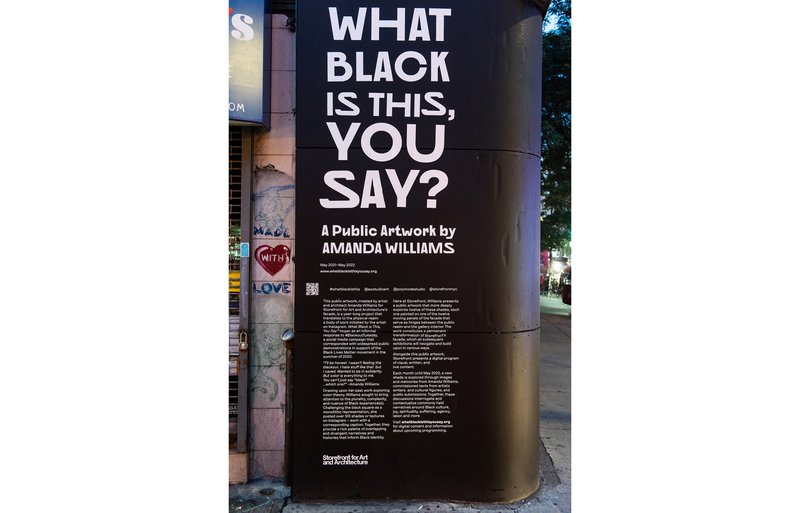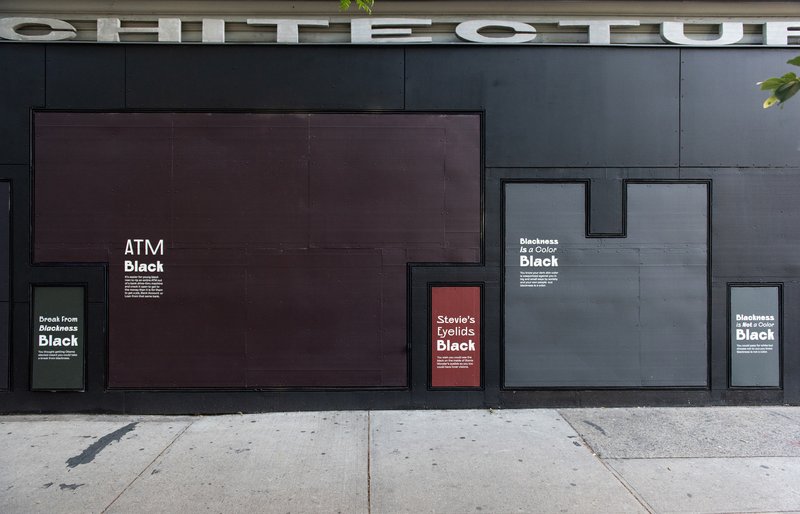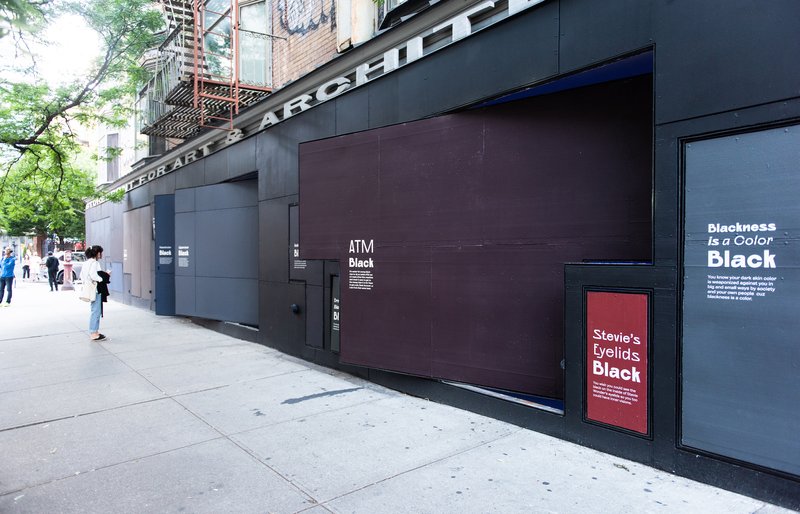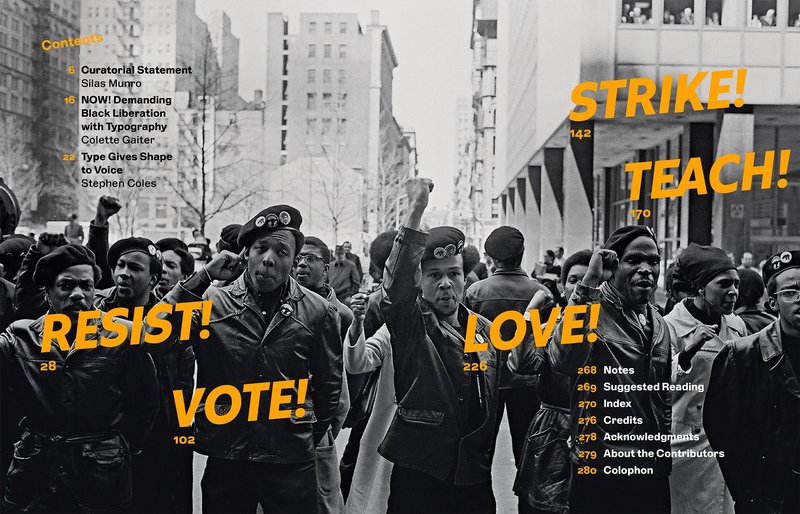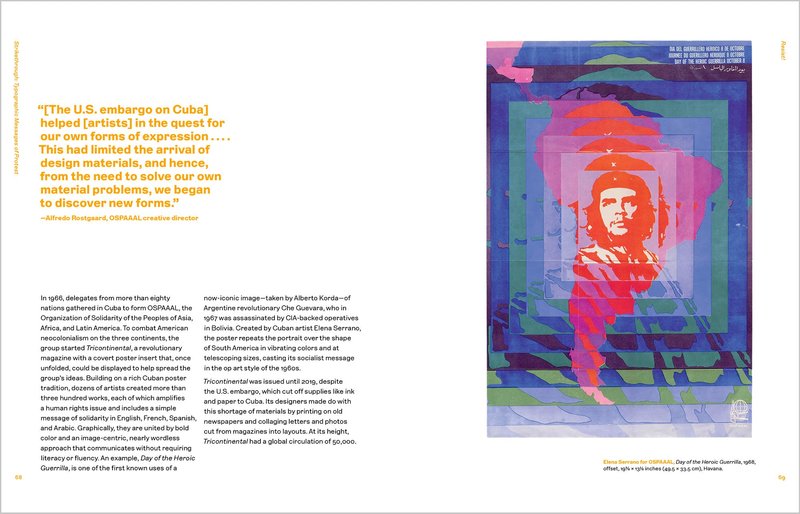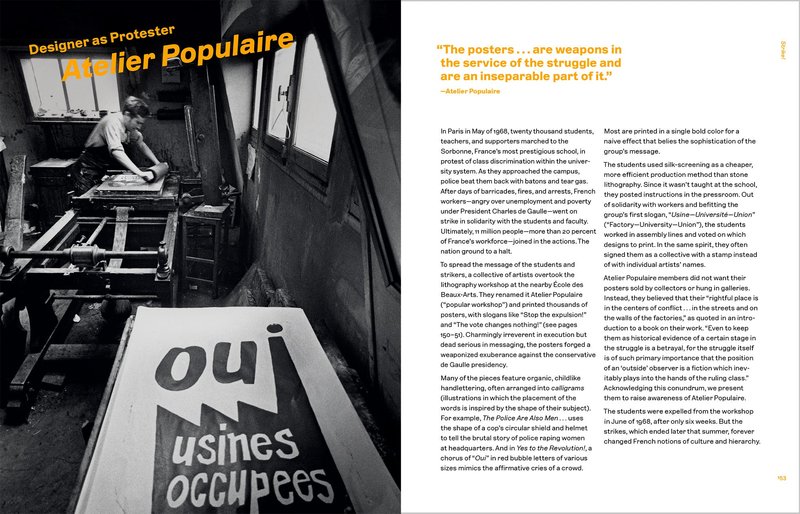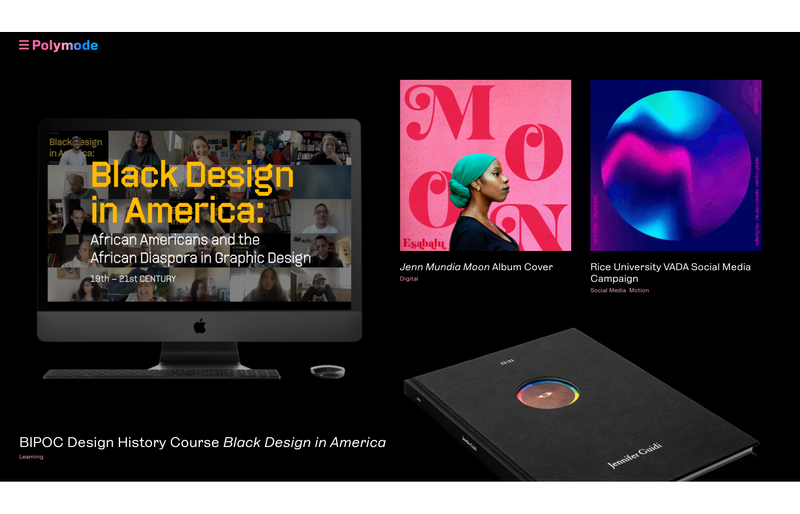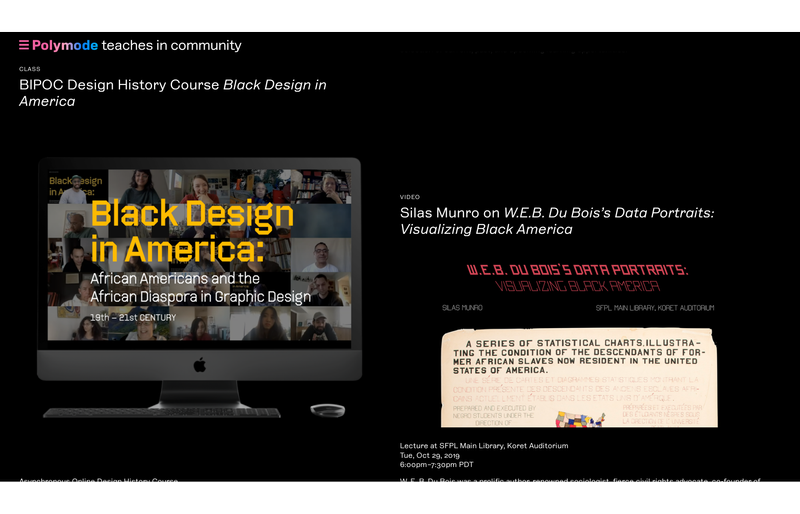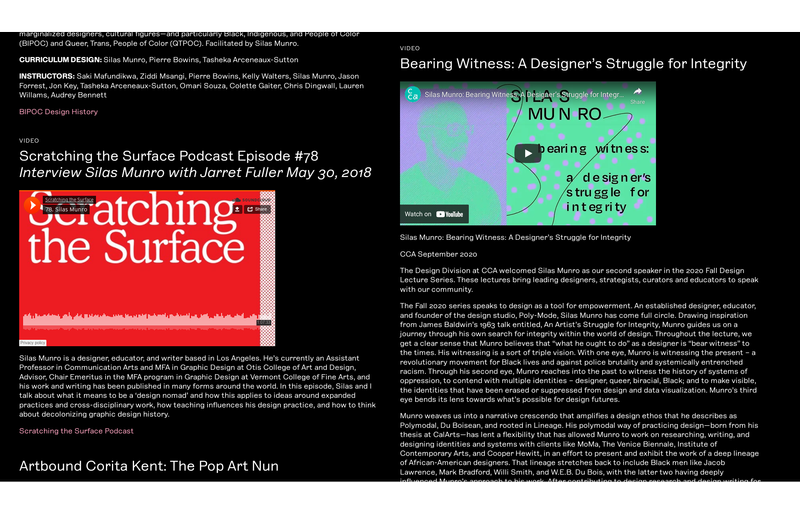
Once in a while, a project comes along that pushes our creative limits and commands personal and professional growth. We knew we were in for that kind of wild ride when Polymode asked us for a typeface that would reflect their design studio, represent their multifaceted identities, and be useful in their wide-ranging work.
Custom typeface for Polymode
Polymode Sans
An exceptionally expressive project
We approached XYZ with a question. It wasn’t just ‘we want a typeface,’ it was more: How does, or can, a typeface dynamically express a point of view while also being able to remain ‘neutral’? Ben and Jesse were phenomenal listeners and started by encouraging us to submit visual references that moved well beyond typefaces, consisting of personal and professional lineages—including BIPOC and LGBTQIA+ voices.
Sample images from Polymode’s poetic, all-embracing research
Poetic research
As part of Polymode’s practice of poetic research, they provided a provocative collection of images drawn from their interests and personal identities: magazines from the Harlem Renaissance and ’80s gay nightlife, handcrafts from Indigenous America and Uganda, works by Goya and Poe, and so much more. Viewed as a whole, these images provided an impressionistic definition of “Polymode”—both the typeface and the studio.
Polymode also gave us a direct, but open-ended, list of needs and demands for how the typeface should feel and how it would be used in their work.
Our request was complex, we had expressive needs and functional demands. Polymode Sans needed to work well in running text, feel at home in an art book, but also meet the demands of our contemporary screen-based world. The type needed to have the right amount of friction—noticed but not annoying. We also asked them to let that friction be more noticeable in display sizes.
Practical research
As we wrapped our heads around the elusive voice of Polymode, we turned to our own archives, searching for ways to express it in typographic form. We pulled historical type specimens from our shelves and dug through our collected photos of vernacular lettering, pulling the aesthetic and conceptual threads together.
We proposed a variety of concepts inspired by this research, pushing to the extremes of what we felt would fit the brief. To our surprise, Silas and Brian were drawn to the idea of reviving the comparatively tame historical typeface Lining Gothic, originally designed by Charles H. Beeler Jr. and released around 1885 by MacKeller, Smiths & Jordan Company.
The typeface would meet the primary purpose of the assignment: balancing functionality with personality. Beyond its buttoned-up first impression, some unexpected charisma commands closer attention, such as the flat horizontal strokes of g, s, and y; the hook-arched r; and the non-aligned crossbars of f and t.
Lining Gothic, from 1912 American Type Founders catalog
Let’s get weird
Although Lining Gothic spoke to the personality of Polymode, we all agreed that our typeface ought to be a bit more, well, polymodal. We explored ideas of elaborate ligatures and unorthodox alternates, but ultimately we hit upon the best way to provide a range of voices: a variable font.
We started with a direct digital revival of Lining Gothic and quickly started asking: What would this typeface look like if we stripped away all of its eccentricities? What if we dialed those quirks up to the max? Building this thinking into a variable font axis enabled a wide range of expression with fine-tuned control.
Throughout our design process, we shared updated in-progress fonts with Polymode. Their immediate feedback from using the typeface in real-world projects enabled us to revise and update it quickly while refining the final product. Consistent requests that we “make it weirder!” pushed us further away from our comfort zone and closer to theirs.
A demonstration of the unique Realness axis in Polymode Sans
From Acting Basic to Opulence
Polymode Sans came into its own as a variable font with an invented Realness axis on which the characters get progressively more expressive and harder to ignore. The Realness settings range from Acting Basic to Opulence, with stops along the way at Going to Work, Churl Please, and Attitude. (Choosing these names may have been the most fun part of the project for Silas and Brian.)
Realness articulates the studio’s wide range of voices and shifts modes for their diverse work. As Brian says, “Sometimes I need to be buttoned-up and sometimes I want to flip my hair and be a little bit much—and it depends on the day.”